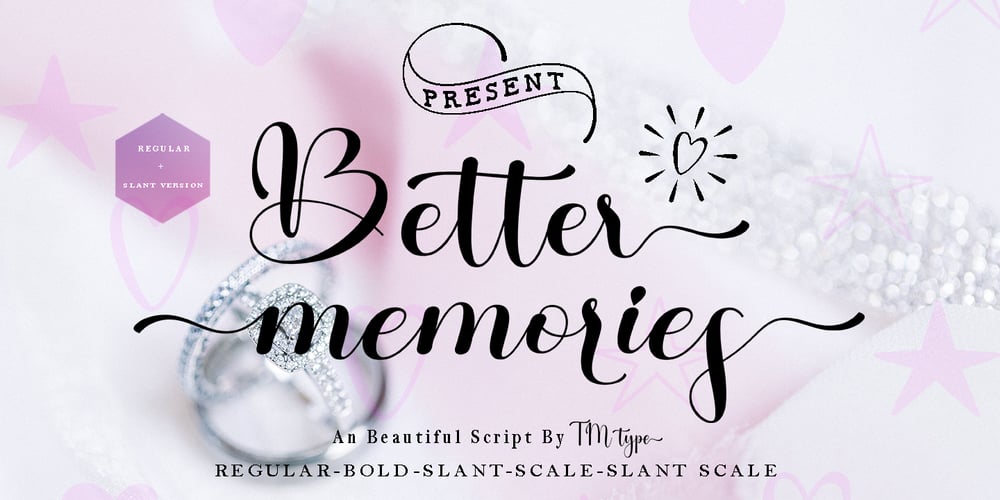
Better Memories Font Family was designed by Teuku Bustami and published by TM Type. Better Memories contains 5 styles and family package options. Better Memories feels equally charming and elegant. It looks stunning on wedding invitations, thank you cards, quotes, greeting cards, logos, business cards, and every other design which needs a handwritten touch.It is also PUA encoded which means you can access all of the glyphs and swashes with ease!